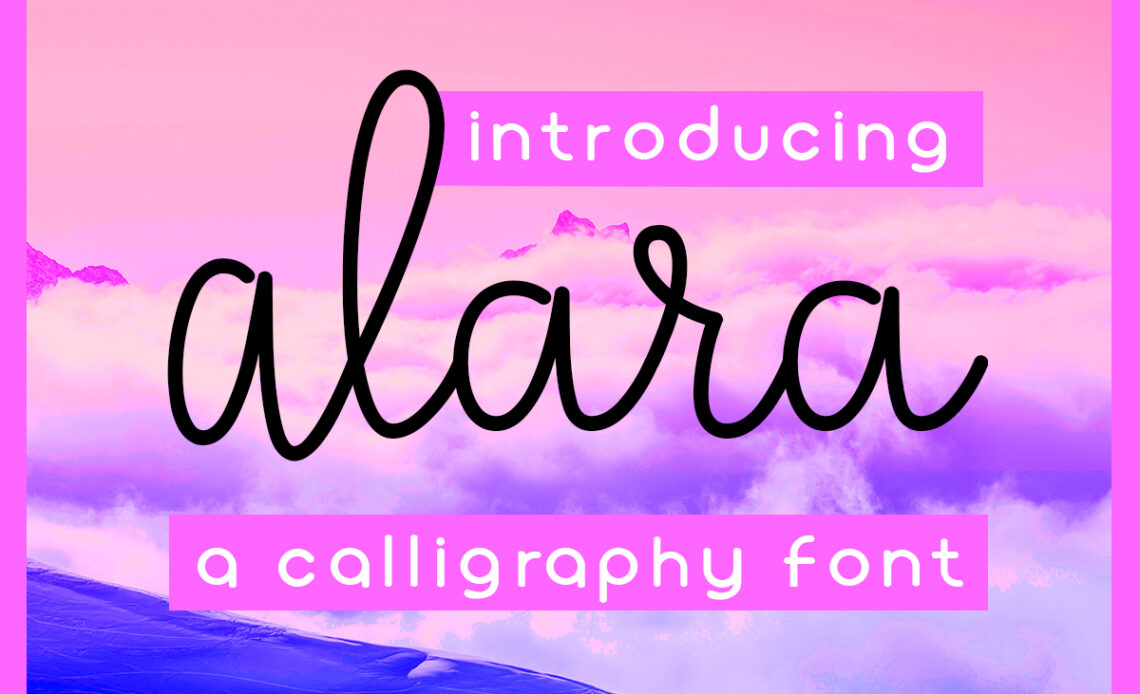
Behold Alara, the captivating script font that will ignite your creativity and take your designs to ethereal heights. With its mesmerizing swashes and monoline elegance, Alara effortlessly blends timeless charm with a touch of modern allure.
Indulge in the graceful curves and delicate strokes of Alara, a font that whispers romance and evokes a sense of whimsy. Its versatility knows no bounds, making it the perfect choice for adding a touch of sophistication to invitations, branding, and all your creative endeavors.
Alara is the epitome of femininity and style, with each character flowing effortlessly into the next, creating a harmony that is both captivating and inviting. Its monoline design adds a touch of modernity, ensuring that your designs stand out with both grace and impact.
Whether you're a seasoned designer or just starting your creative journey, Alara is the perfect companion for adding a touch of magic to your work. Its versatility extends from elegant wedding invitations to eye-catching social media posts, ensuring that your creations will leave a lasting impression.
So, dive into the world of Alara and let your imagination soar. Its beauty and charm will inspire you to create designs that are both timeless and unforgettable. Embrace the power of Alara and watch your designs bloom with creativity and sophistication.